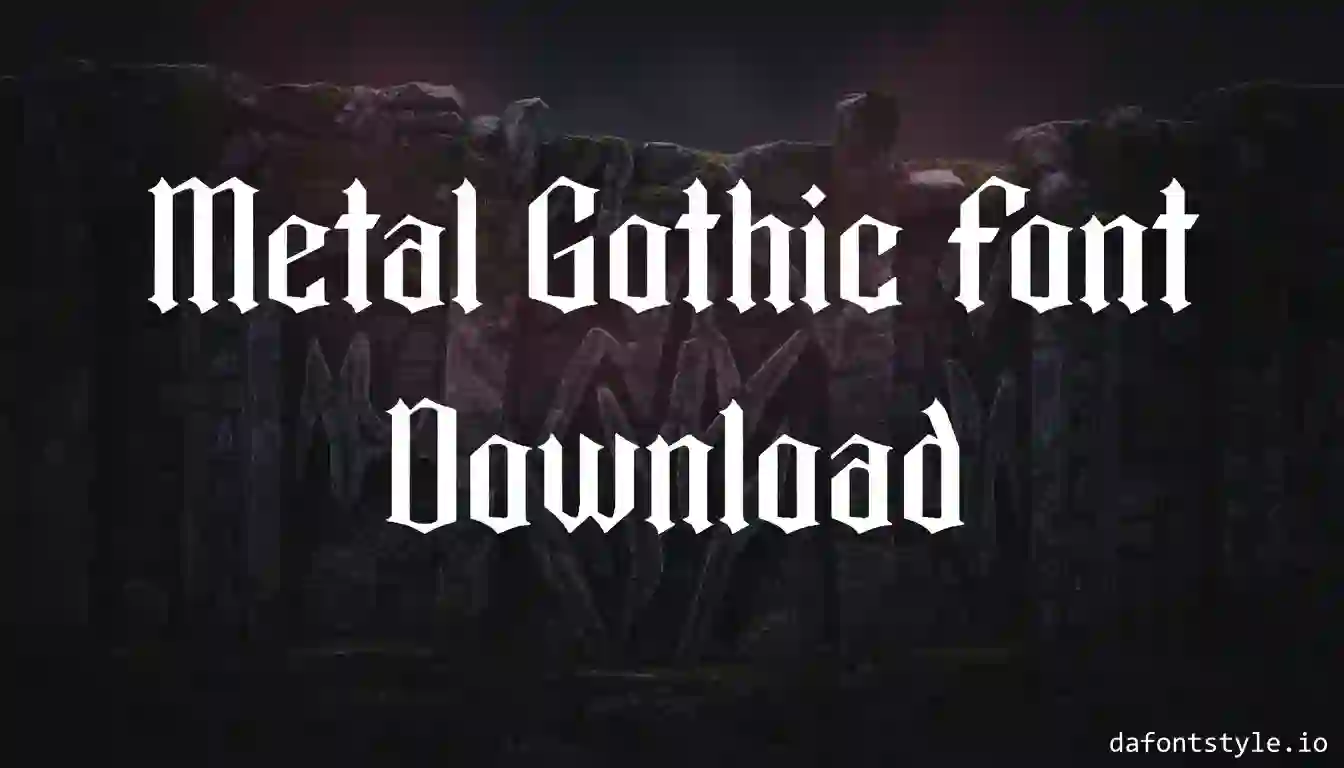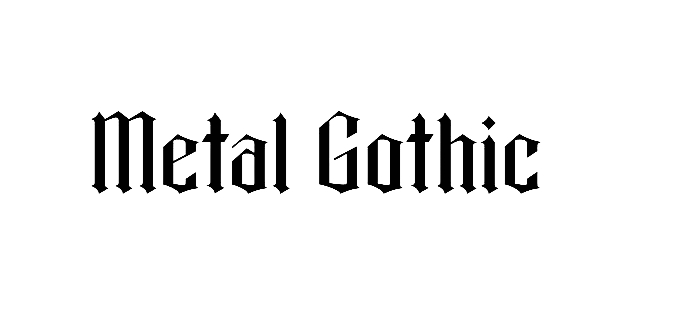
Metal Gothic
Metal Gothic is a gothic font created by Sigit Dwipa Raharjo and released through Nirmana Visual (2022). Sharp, dark and dramatic, it follows the blackletter tradition of old European manuscripts. It's a free download, and you can try it with your own text in the preview above first.
- Designer: Sigit Dwipa Raharjo
- Publisher: Nirmana Visual
What You Can Type With Metal Gothic
Metal Gothic has the full alphabet in upper and lowercase. There are no numbers, so you'll need a second font for dates, prices or phone numbers. Common punctuation such as &, !, ? and @ is included as well. It also has the accented letters you need for Spanish, French, German, Portuguese and Italian.
Where Metal Gothic Works Best
Think of Metal Gothic for tattoos, metal band logos and dark fantasy titles. Blackletter is very hard to read in all caps, so type in normal upper and lowercase.
Who designed Metal Gothic font?
Does Metal Gothic support accented letters?
Yes. Metal Gothic includes the accented letters needed for Spanish, French, German, Portuguese and Italian, so it works for more than just English.
Does Metal Gothic have numbers?
No. Metal Gothic has no numbers, so pair it with another font for dates, prices or phone numbers.